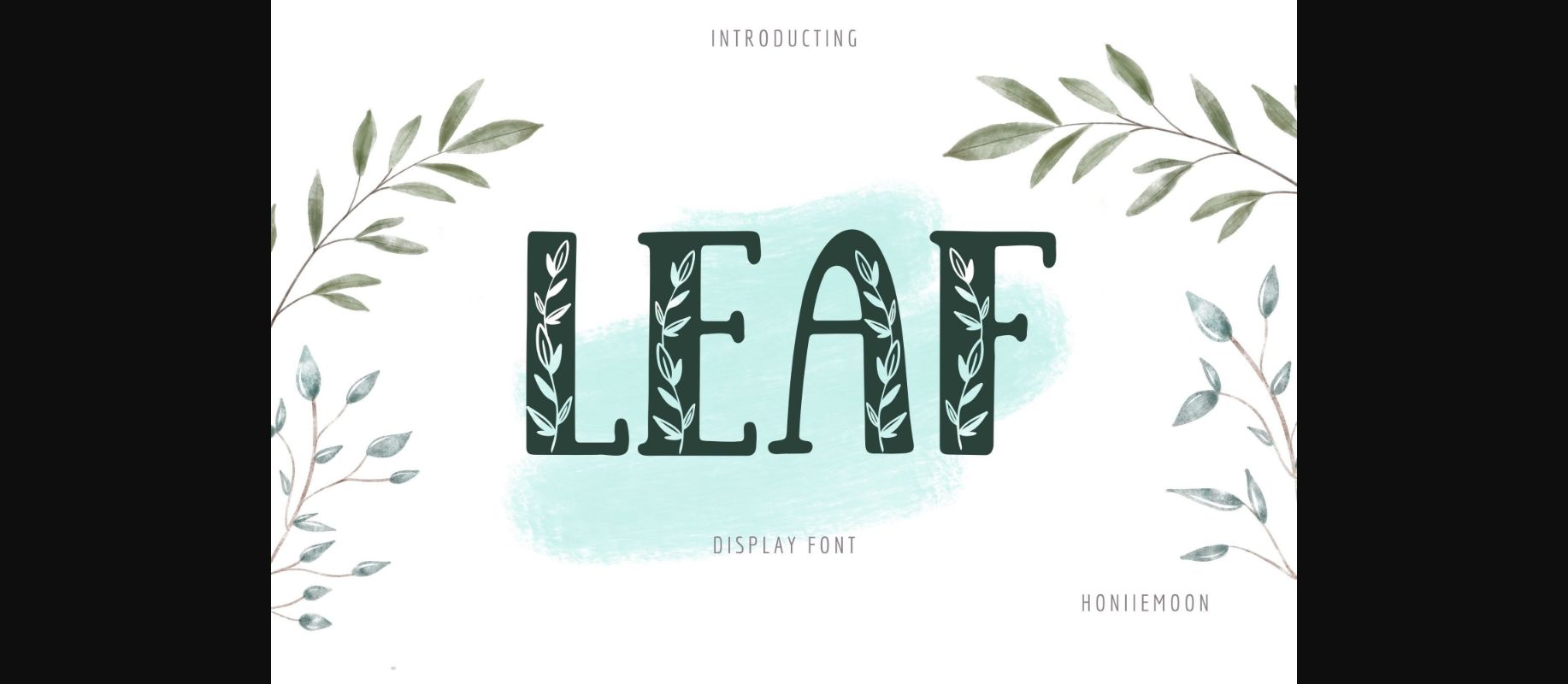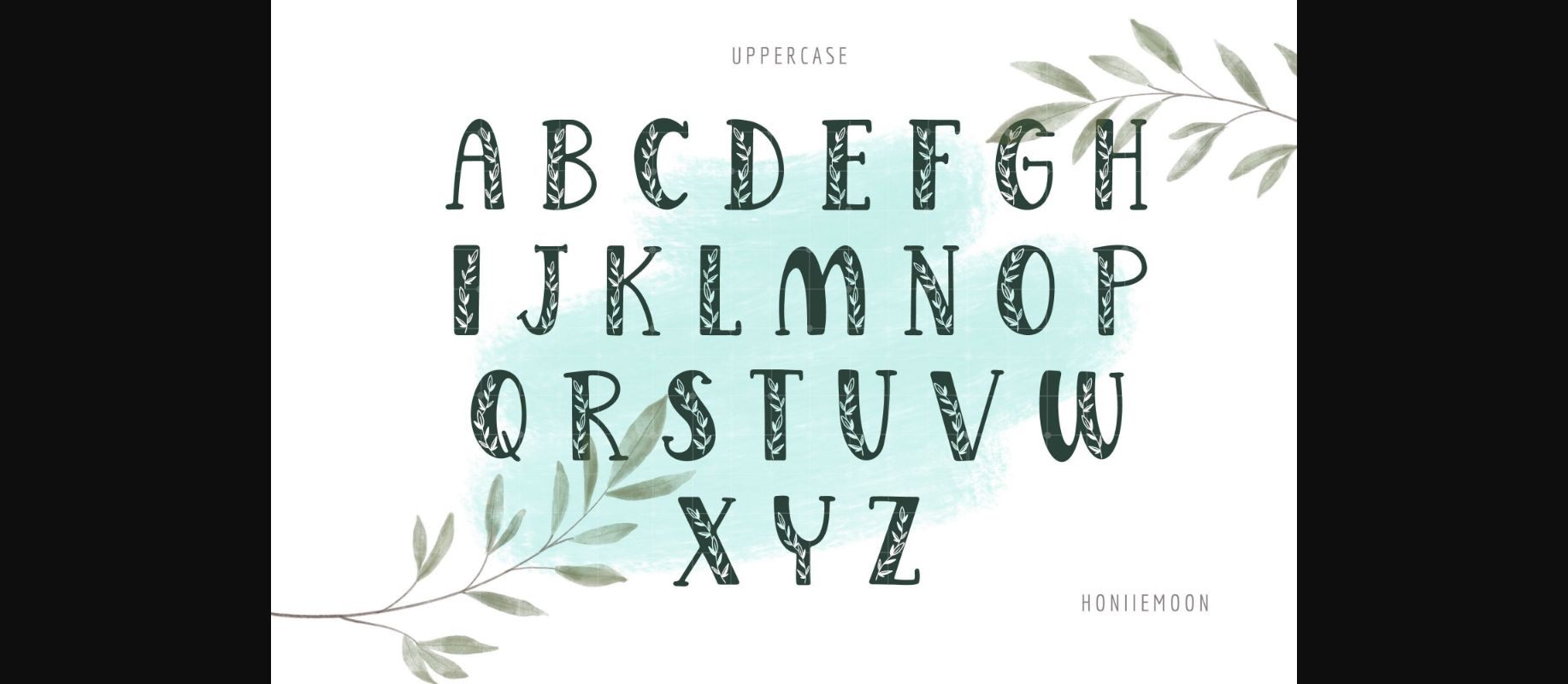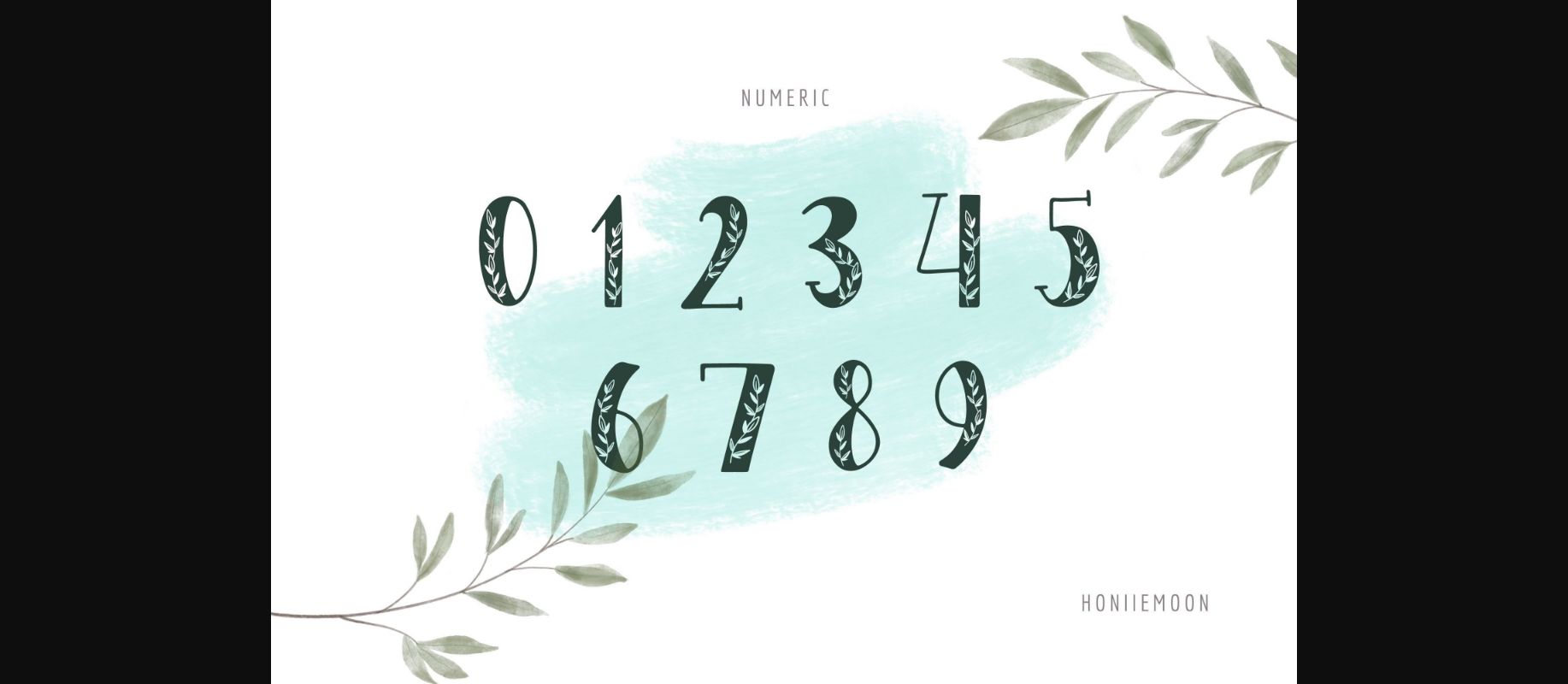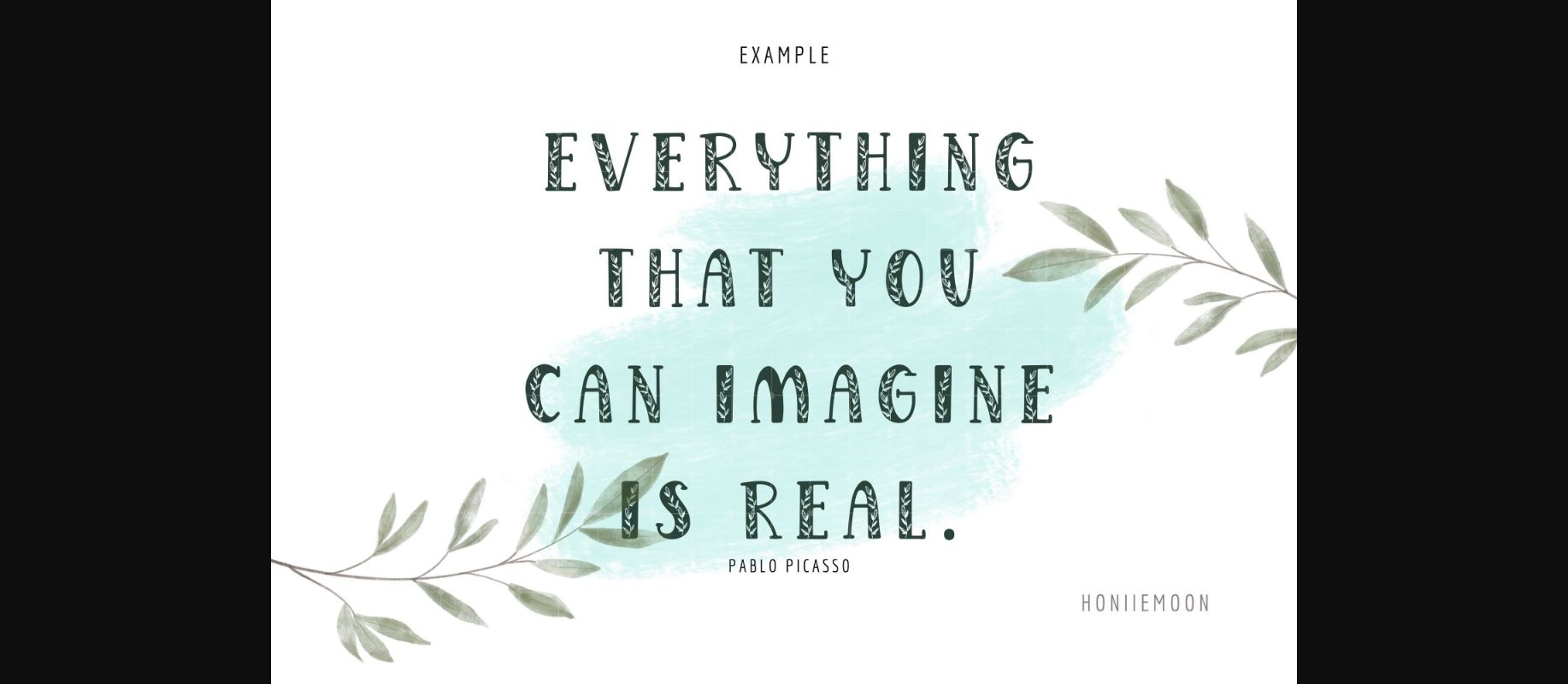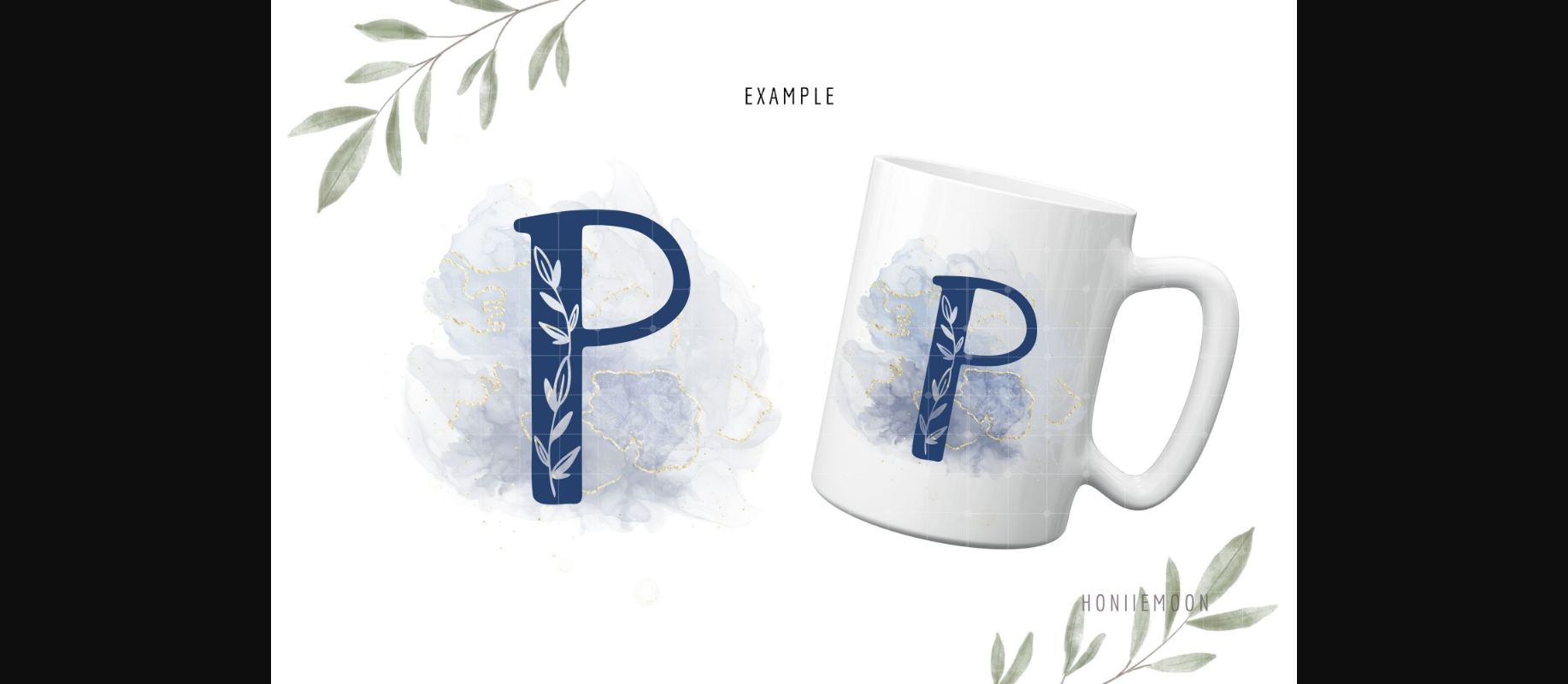
HomeDecorative FontsLeaf Font Decorative Fonts Leaf Font FacebookXPinterestWhatsApp 1 of 7 ... Leaf Font Poster 2... Leaf Font Poster 3... Leaf Font Poster 4... Leaf Font Poster 5... Leaf Font Poster 6... Leaf Font Poster 7... About Leaf Font Leaf is a cute and jolly decorative font that will enhance each of your designs. Add this colorful and bold font to each of your creative ideas, and notice how it makes them come alive! DOWNLOAD NOW People also explored Sunshine Wishes Font You Are My Rainbow Font Munichly Script Font Baby Lelucky Font Breetty Font Guten Morgen Dear Font Misterlove Font Kathia Script Font Sianok Valley Font 376 0 TagsLeafLeaf Font Previous articleFlora FontNext articleSoccer Font LEAVE A REPLY Cancel reply Comment: Please enter your comment! Name:* Please enter your name here Email:* You have entered an incorrect email address! Please enter your email address here Website: Save my name, email, and website in this browser for the next time I comment. Personal Use Free Peristiwa Font Personal Use Free Read more about this font Dacquoise Personal Use Free Read more about this font Amillina Monogram Personal Use Free Read more about this font Manbow Personal Use Free Read more about this font BLOG Using Fonts in Digital Marketing: Tips to Strengthen Your Brand Identity In the realm of digital marketing, every visual element plays a crucial role in shaping a brand's identity, and fonts are no exception. The... Best Fonts for YouTube Videos: Make Your Thumbnails Stand Out Transform Your Website: Elevate Your Typography with 7 Best Web Font Generators Elegant Wedding Invitation Fonts – Handwritten & Script Fonts